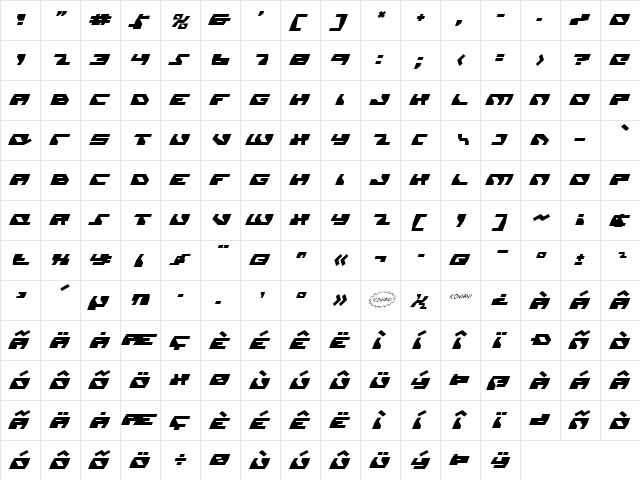
Daedalus Italic Italic
| Designer | Dan Zadorozny |
Design Context for Daedalus Italic Typeface
Daedalus Italic is a composed and adaptable typeface that performs quietly and consistently across a wide range of design contexts. Its italic angle brings a sense of urgency and motion to the letterforms.